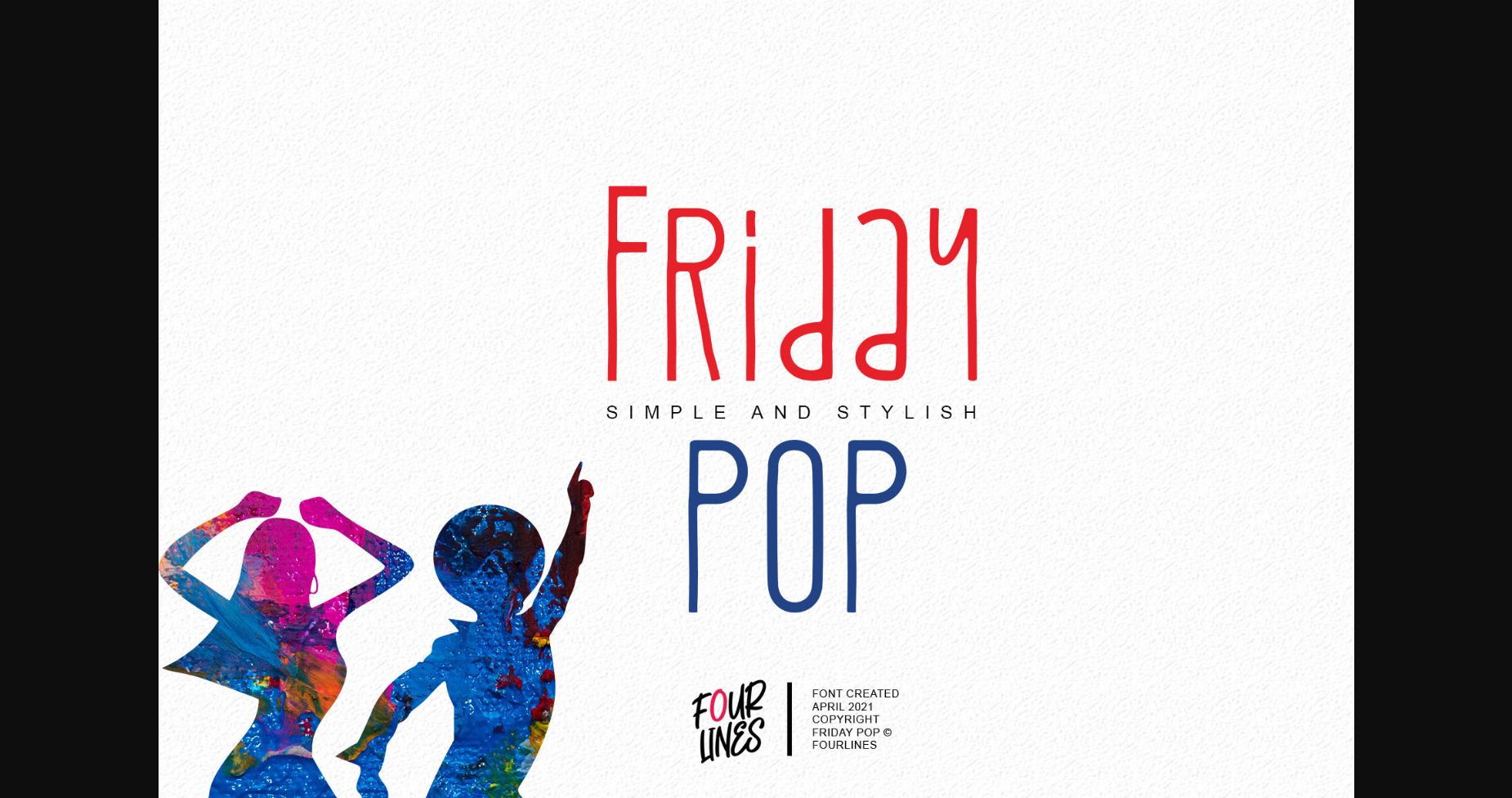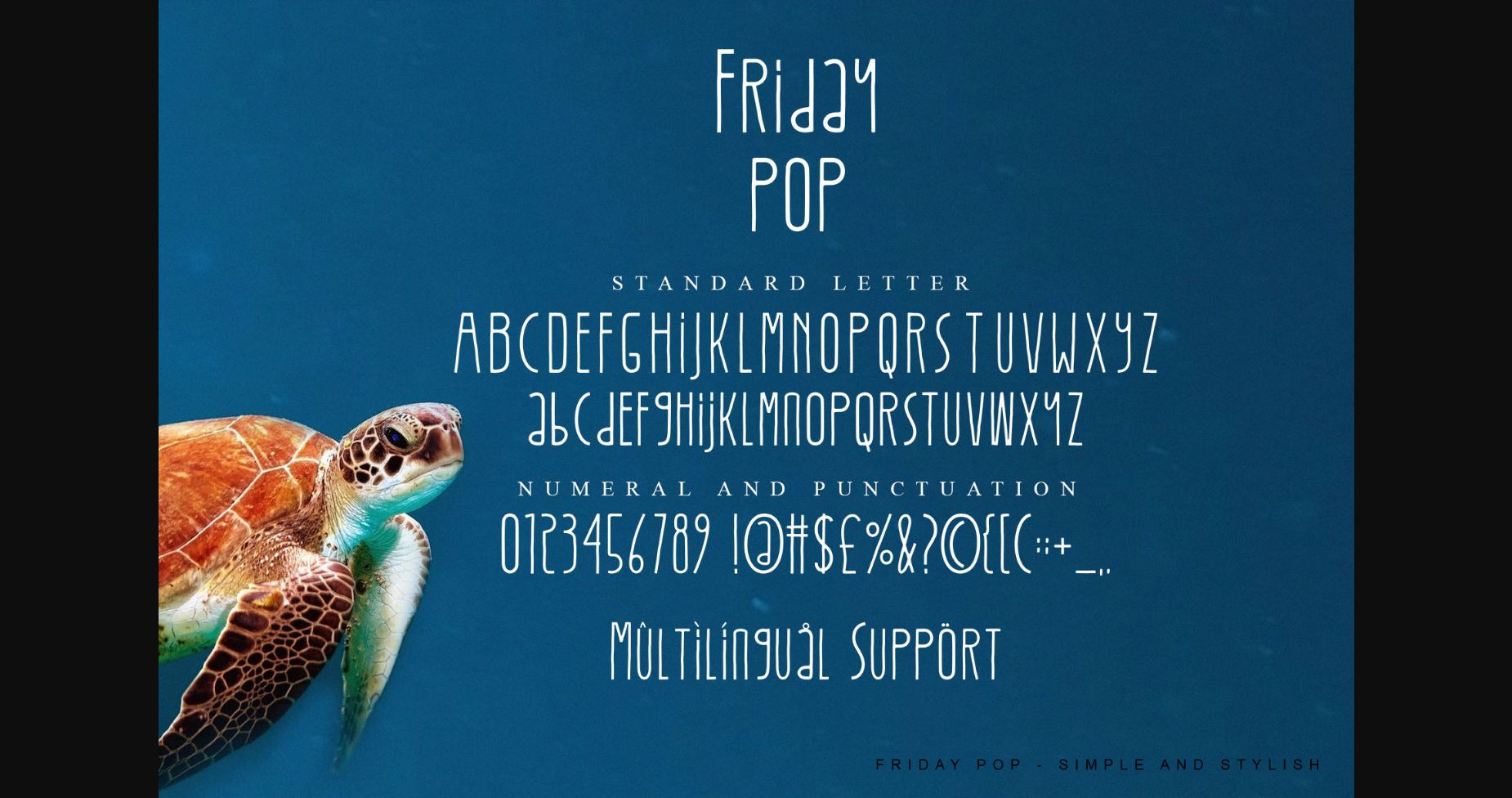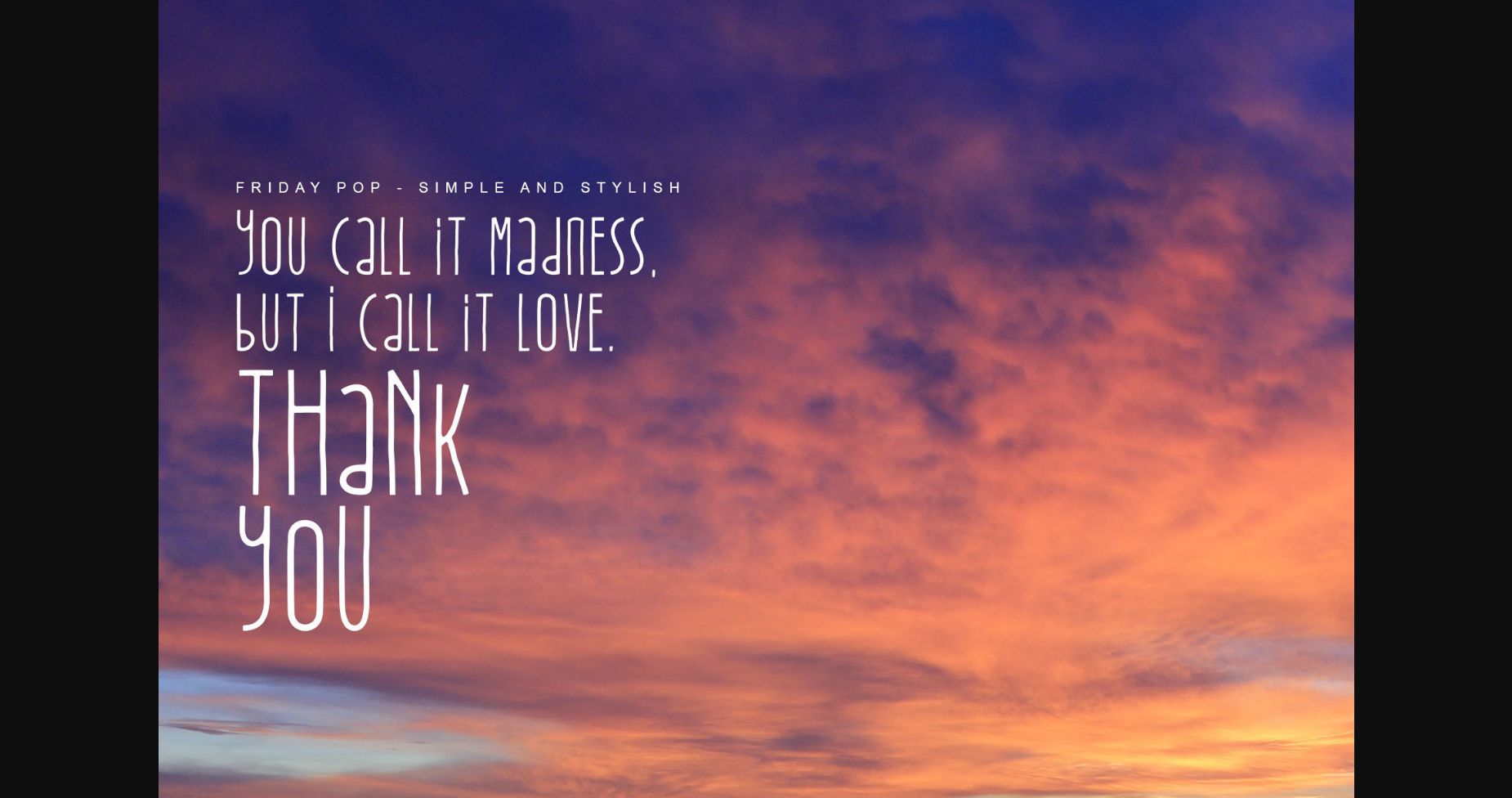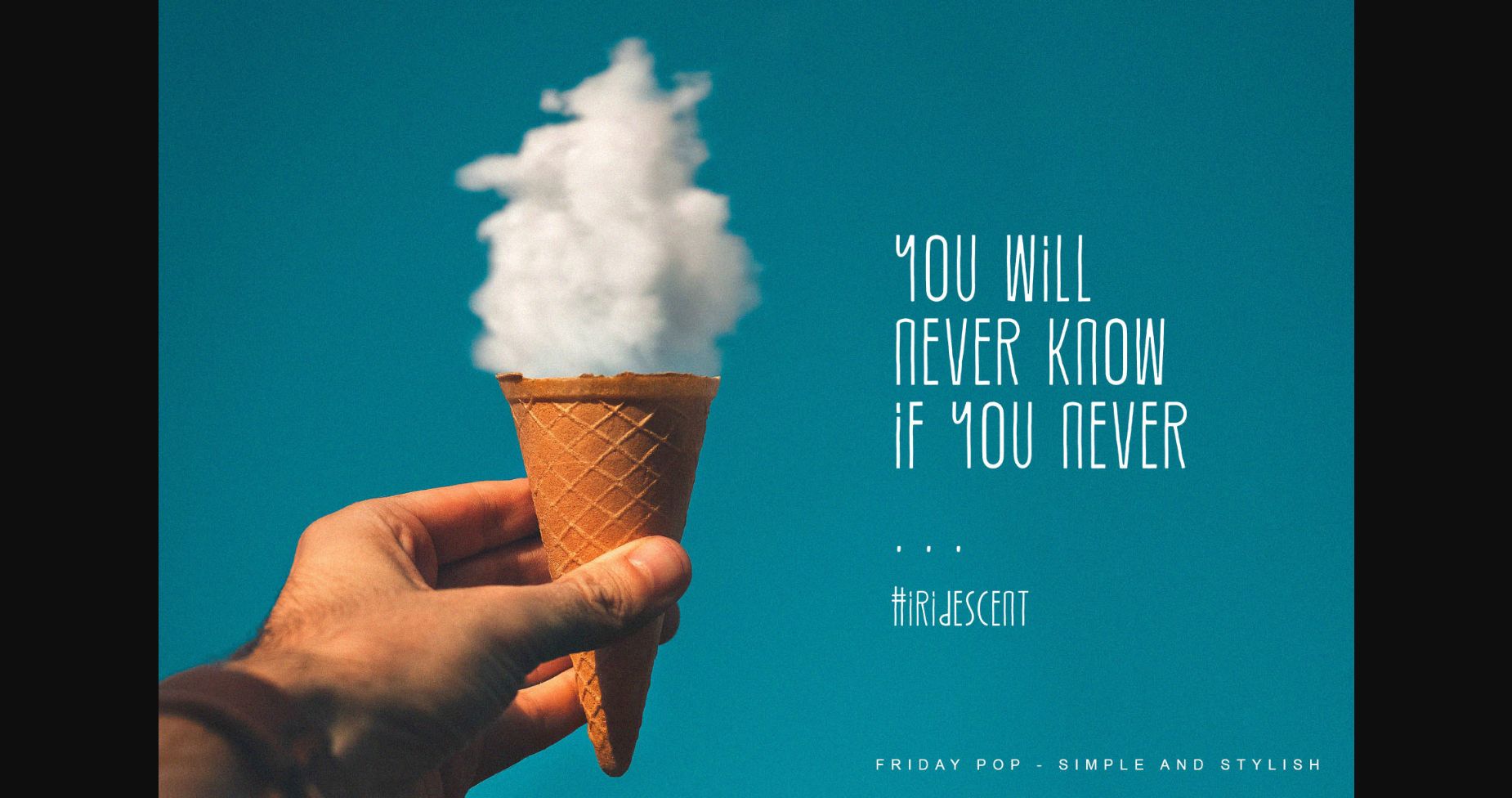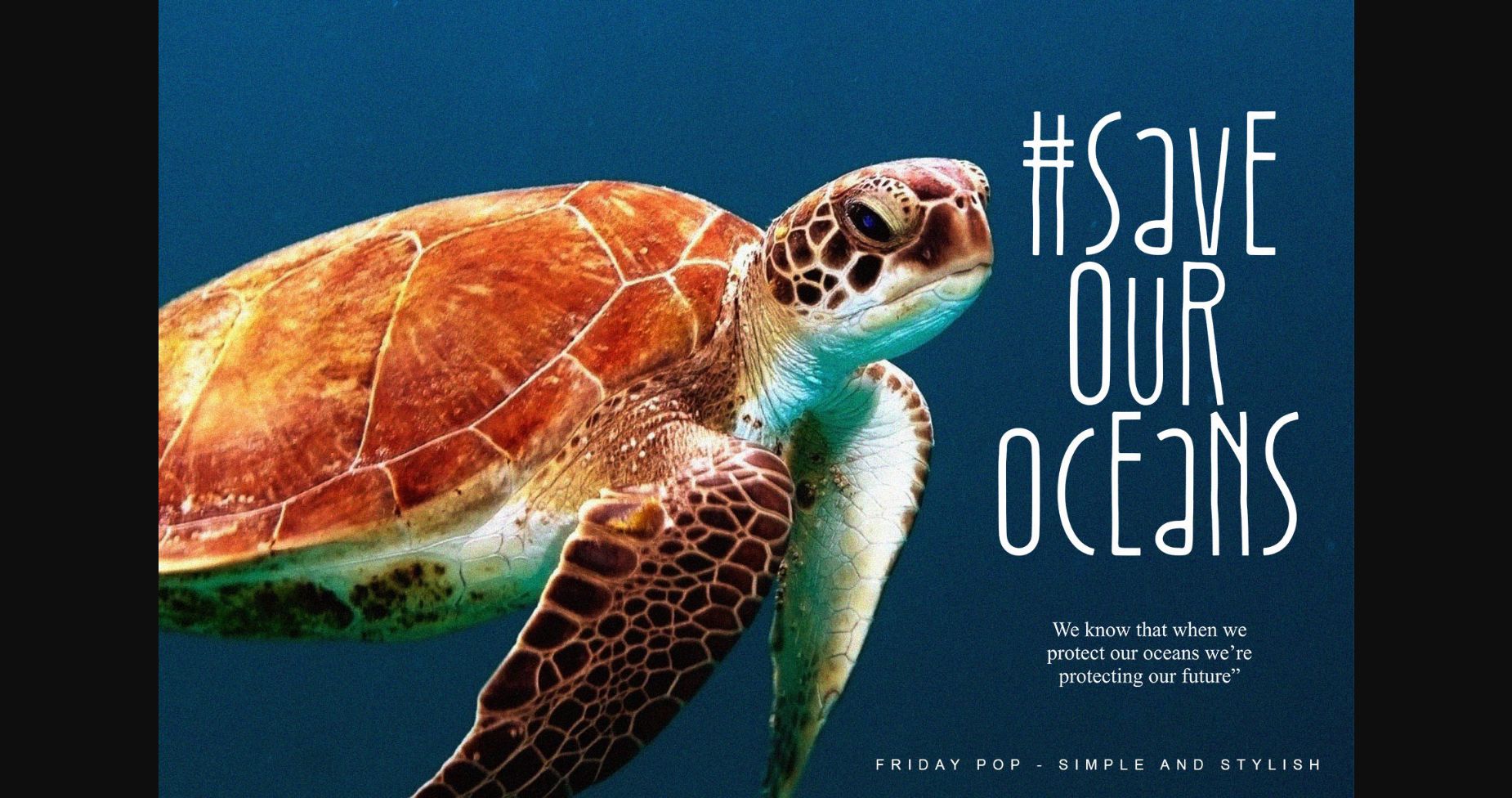
Friday Pop Font
About Friday Pop Font
Friday Pop is a cute, thin lettered and simple sans serif font. It can easily be matched to an incredibly large set of projects, so add it to your creative ideas and notice how it makes them stand out!